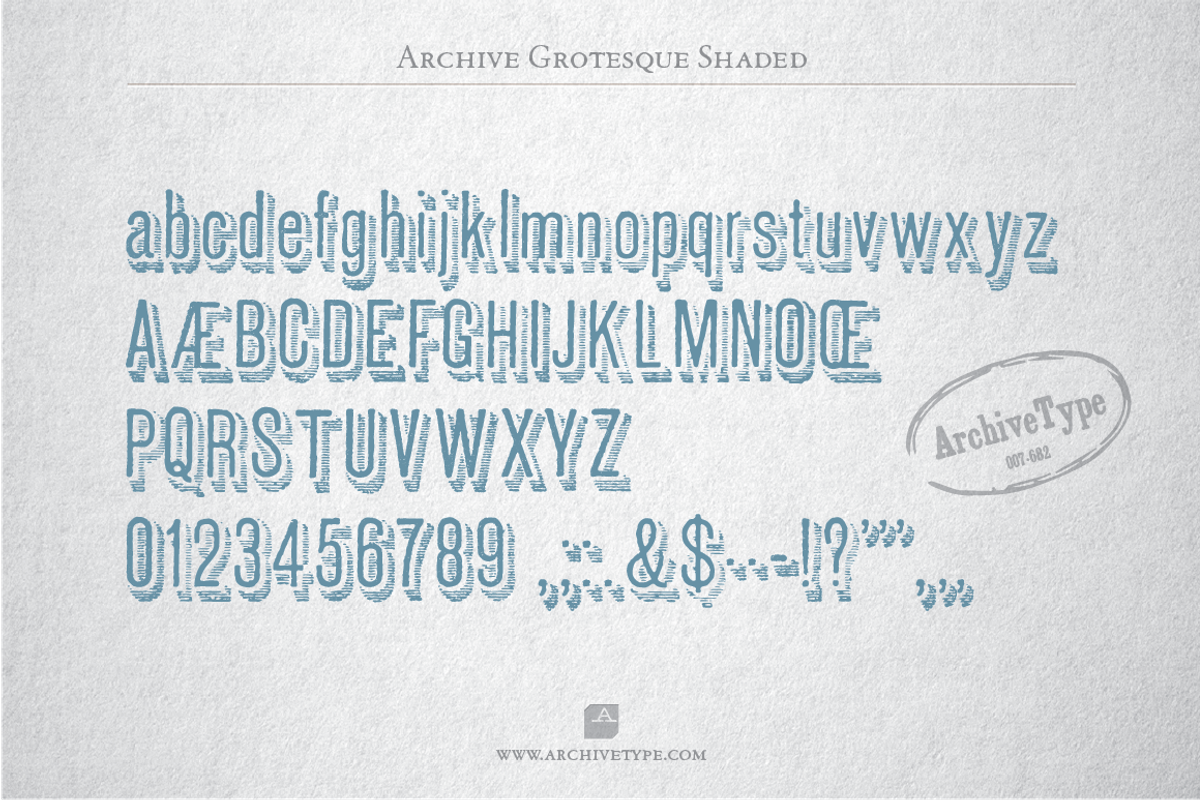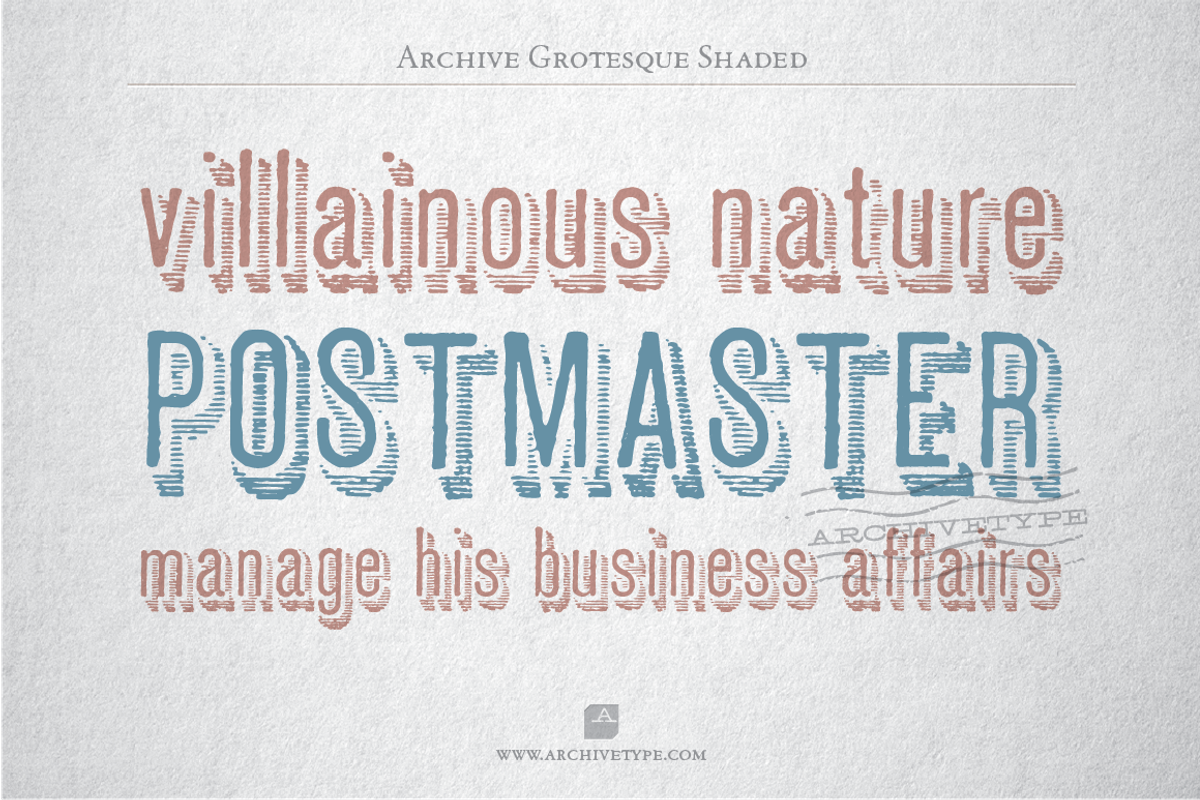
Archive Grotesque Shaded
Archive Grotesque Shaded by Archive Type Fonts is a font selected for branding, posters, packaging, typography.
- In order to preserve the original feel of typefaces, no additional characters were added to originals, therefore, most of the fonts consist
- Upper case letters, lower case letters, numerals and basic punctuation.
Why Archive Grotesque Shaded is worth a look
Archive Grotesque Shaded by Archive Type Fonts fits naturally into Branding, posters, packaging, typography.